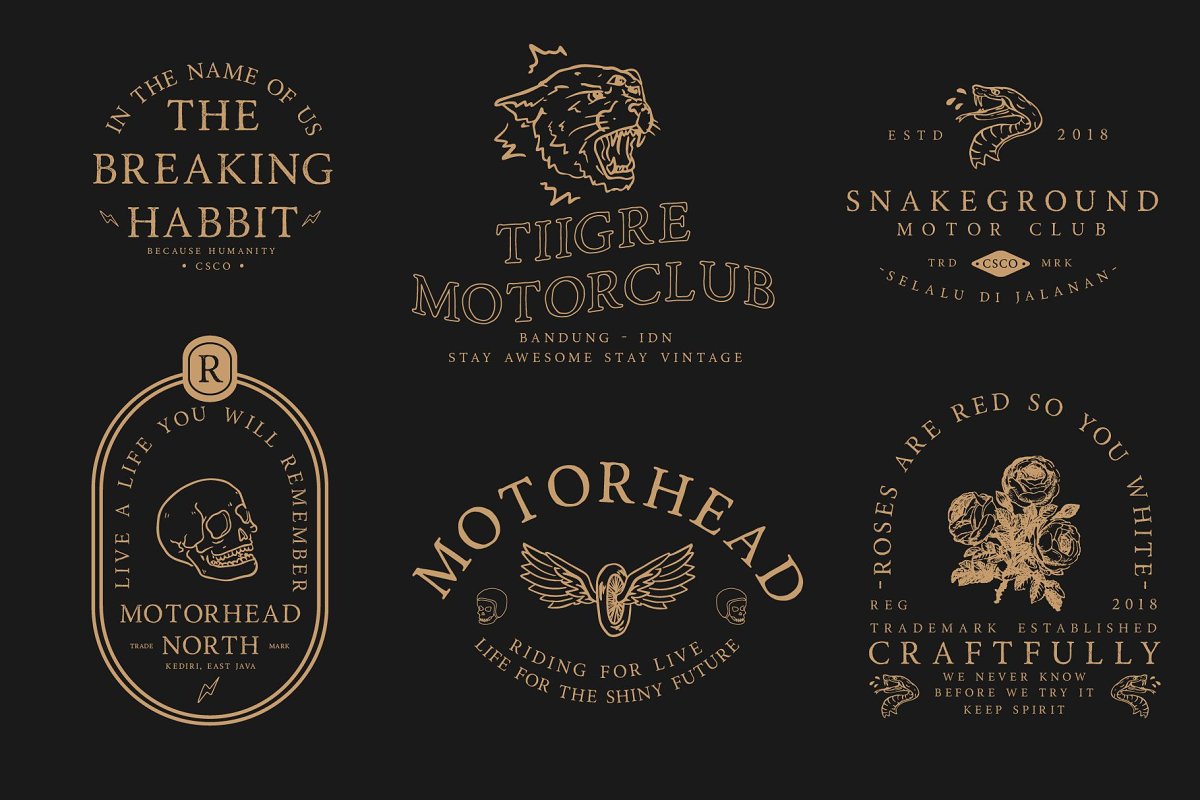
About the Road Race Family Extras Font
⚡Introducing Road Race Font Family + Extras Illustrations ⚡Road Race Font Family + Extras includes 4 Style Fonts, It can be used to create almost all types of design projects like print materials, Just use your imagination and some graphic design set in Extras, your project will become more alive and look great than ever with one of the Road Race font
You want to make a greeting card or a package design, or even a brand identity, craft design, any DIY project, book title, wedding font, pop vintage design, retro design or any purpose to make your art / design project look pretty and trendy? Feel free to play with all the patterns and shape!What you get :Road Race RegularRoad Race OutlineRoad Race RoughRoad Race StampExtras IllustrationsExtras PreviewPreview ImagesFeatures :All Caps FontsStandard LigaturesNumerals & Punctuations (OpenType Standard)Accents (Multilingual characters) (AÀÁÂÃÄÅCÇDÐEÈÉÊËIÌÍÎÏNÑOØÒÓÔÕÖUÙÜÚÛWYÝŸỲŸÆŒßÞ)PUA EncodedAll typefaces come in OTF and TTF format and file Bonus come in Ai CC